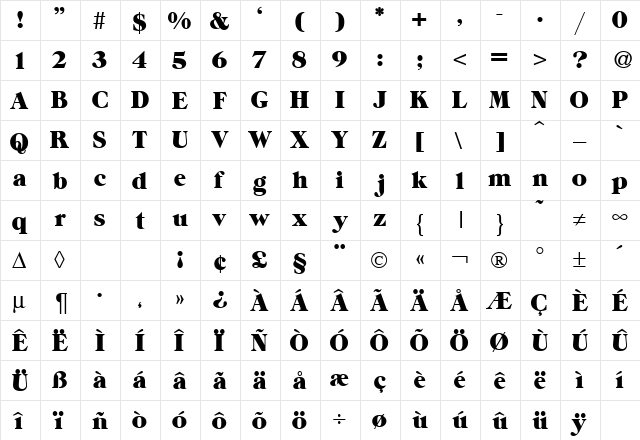
Zepp DB Regular
Design Context for Zepp DB Typeface
Zepp DB is a composed and adaptable typeface that performs quietly and consistently across a wide range of design contexts.